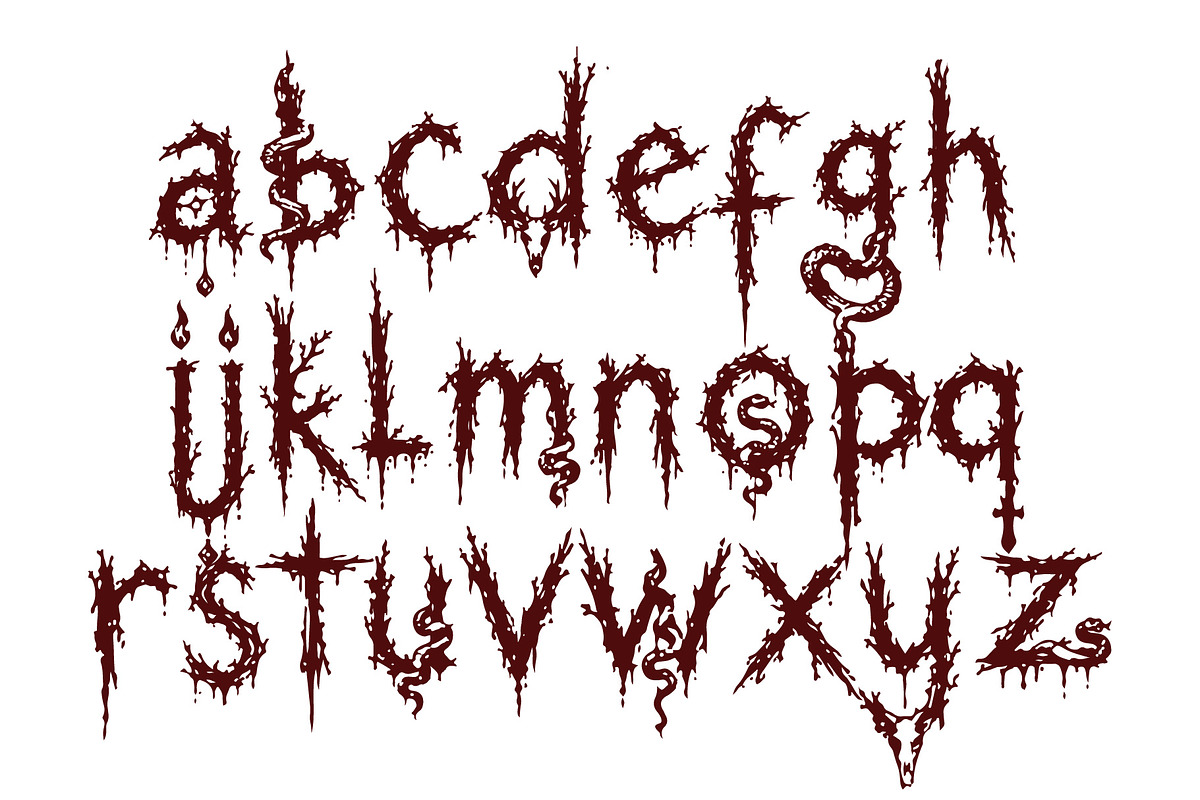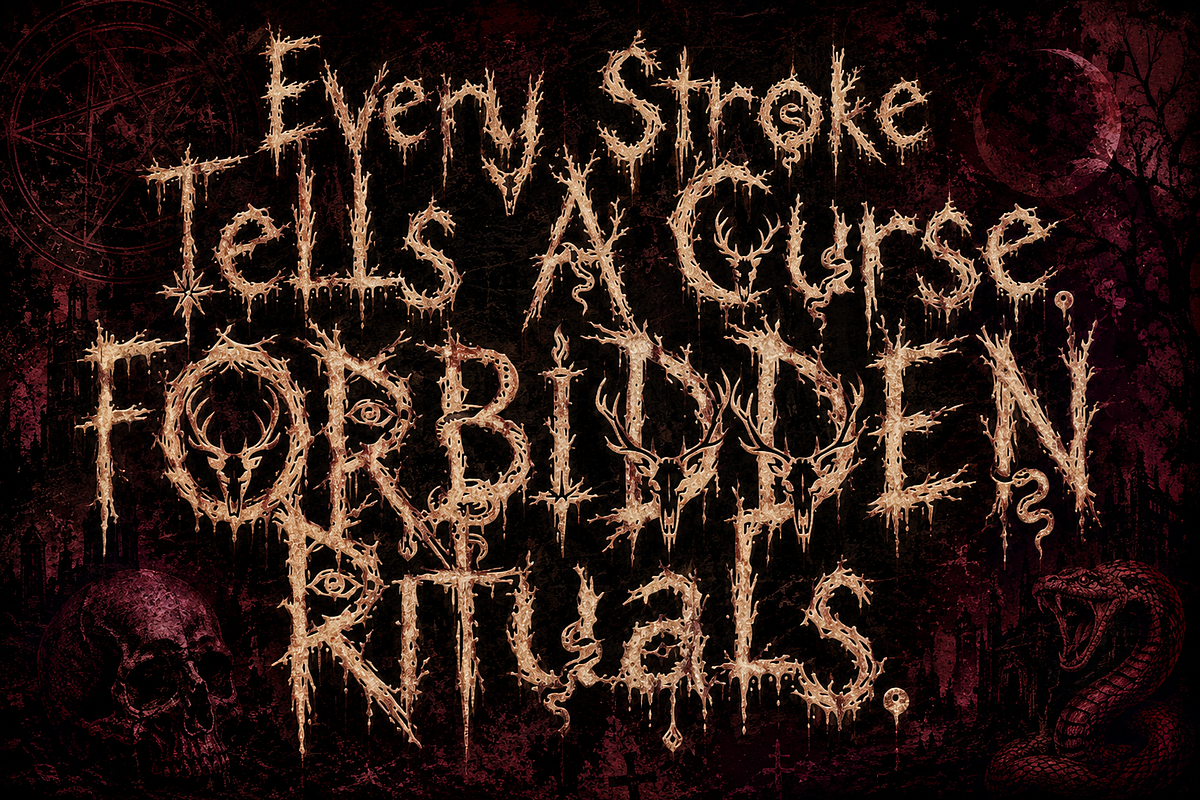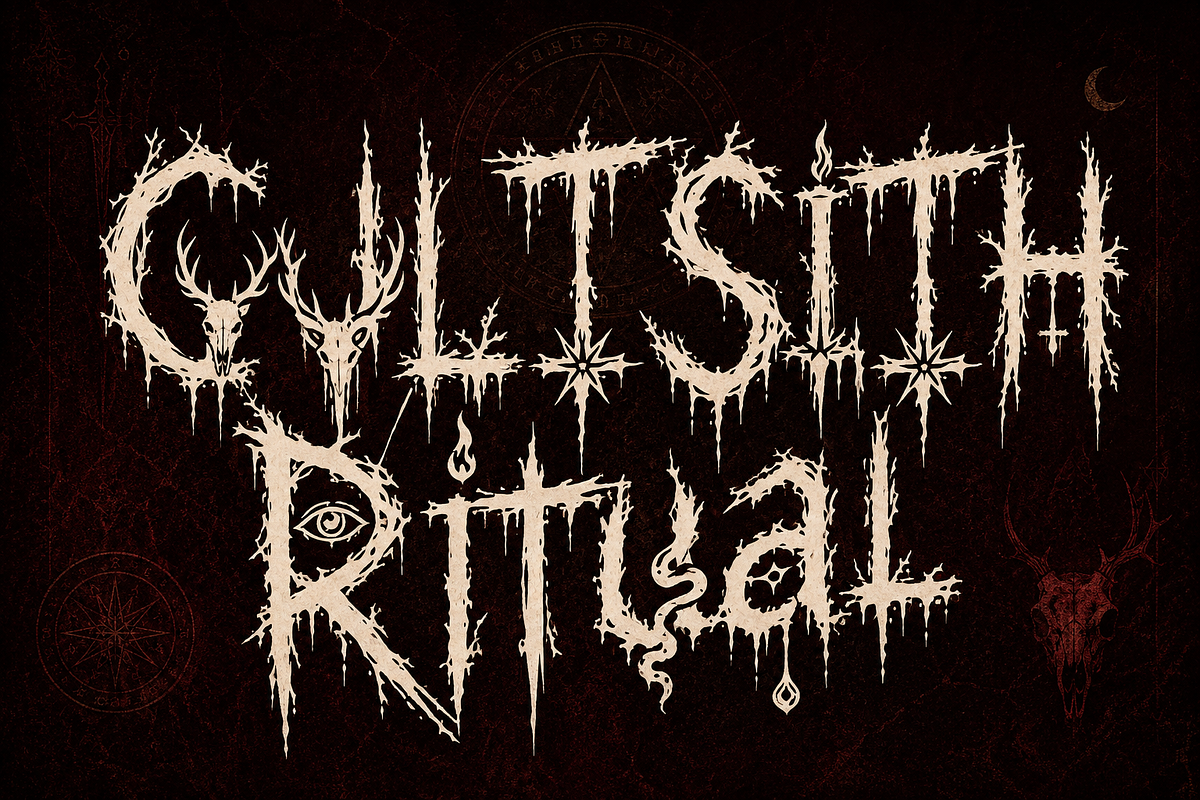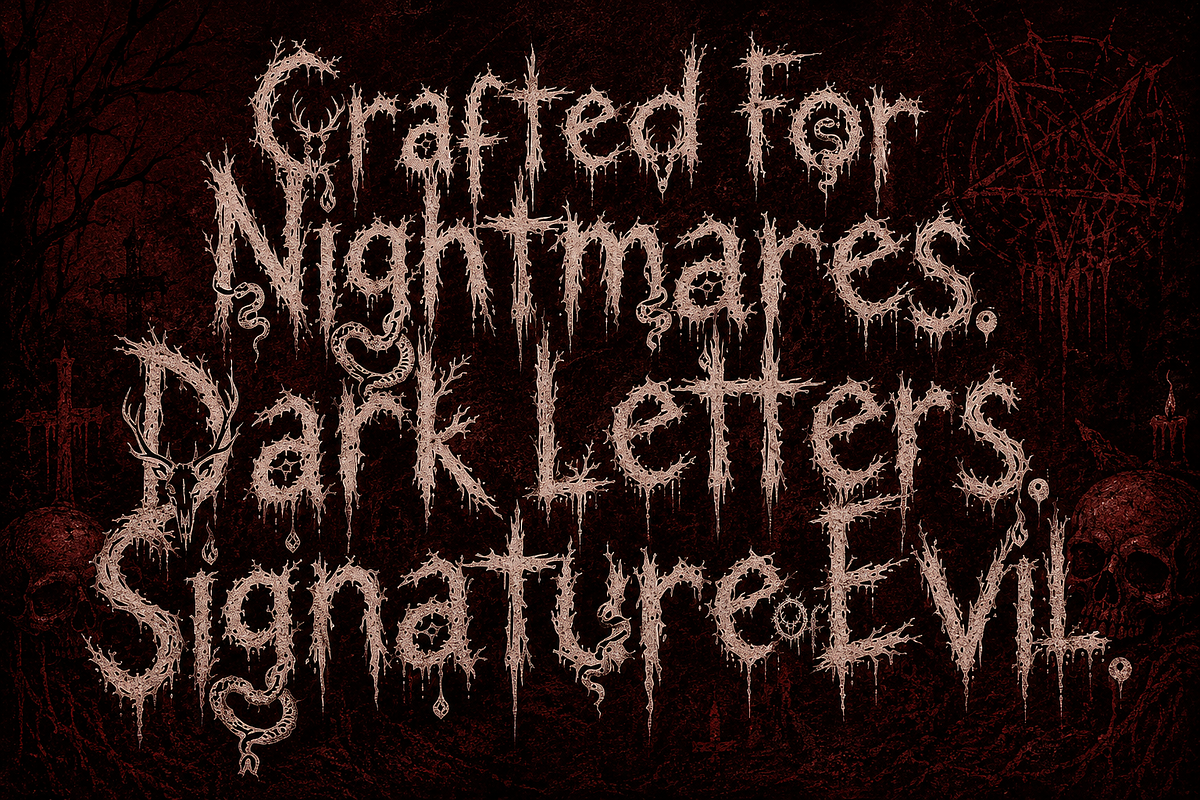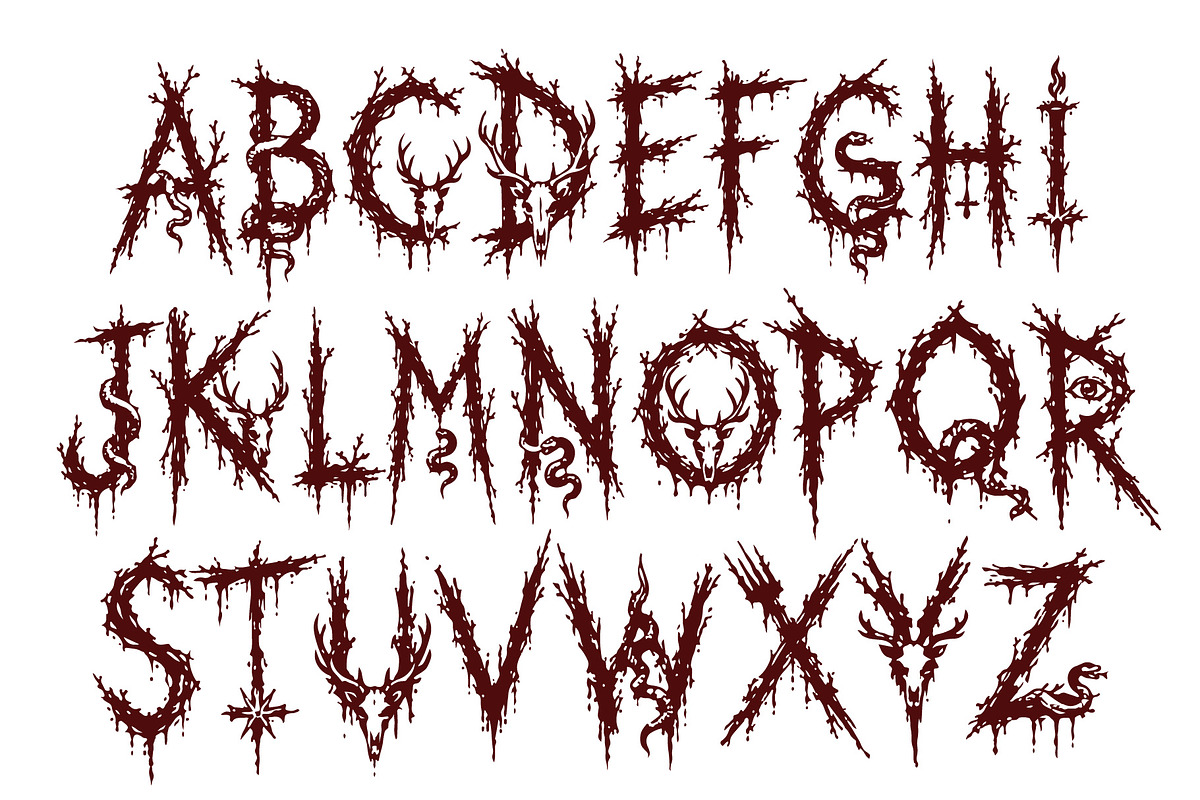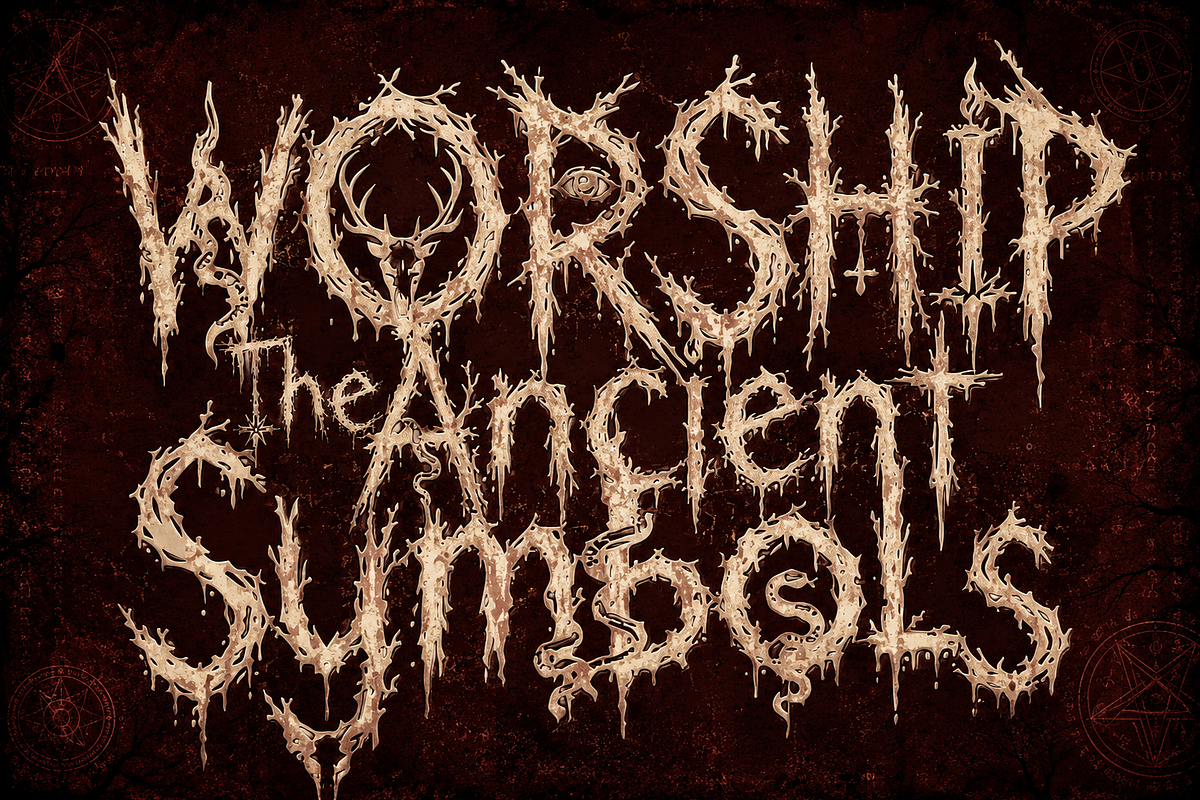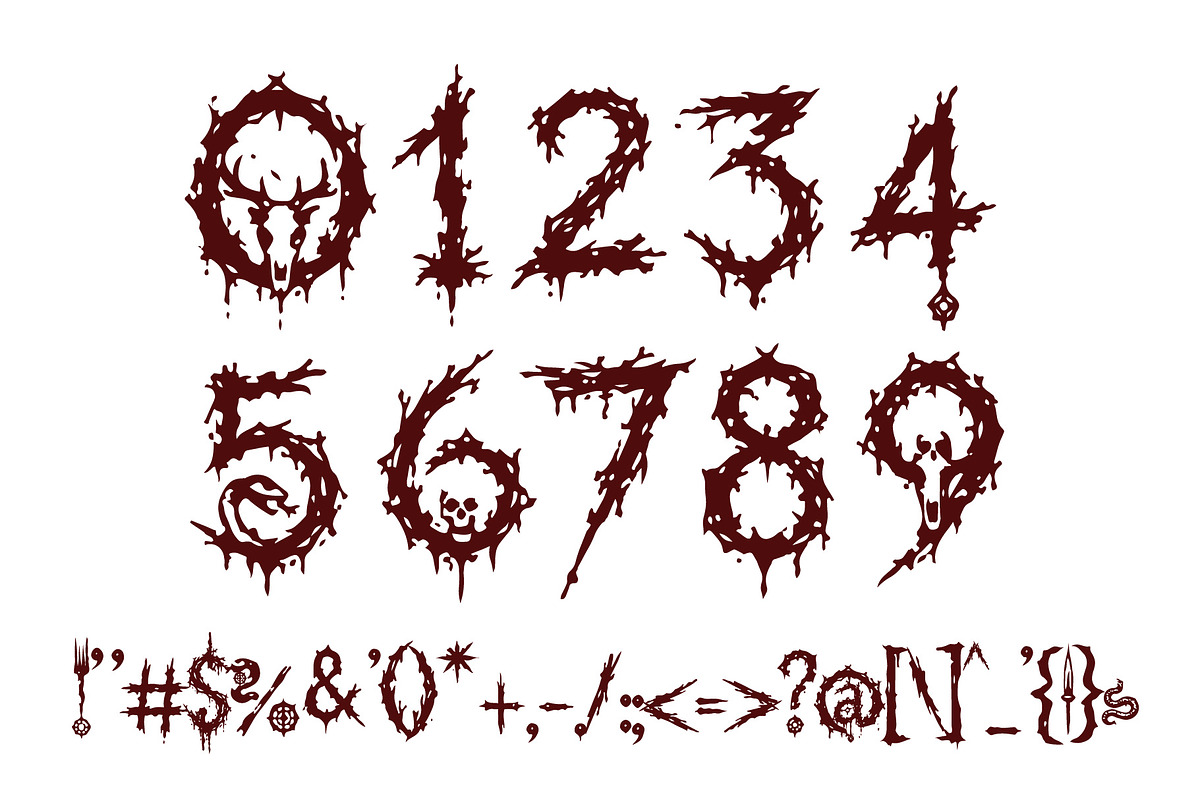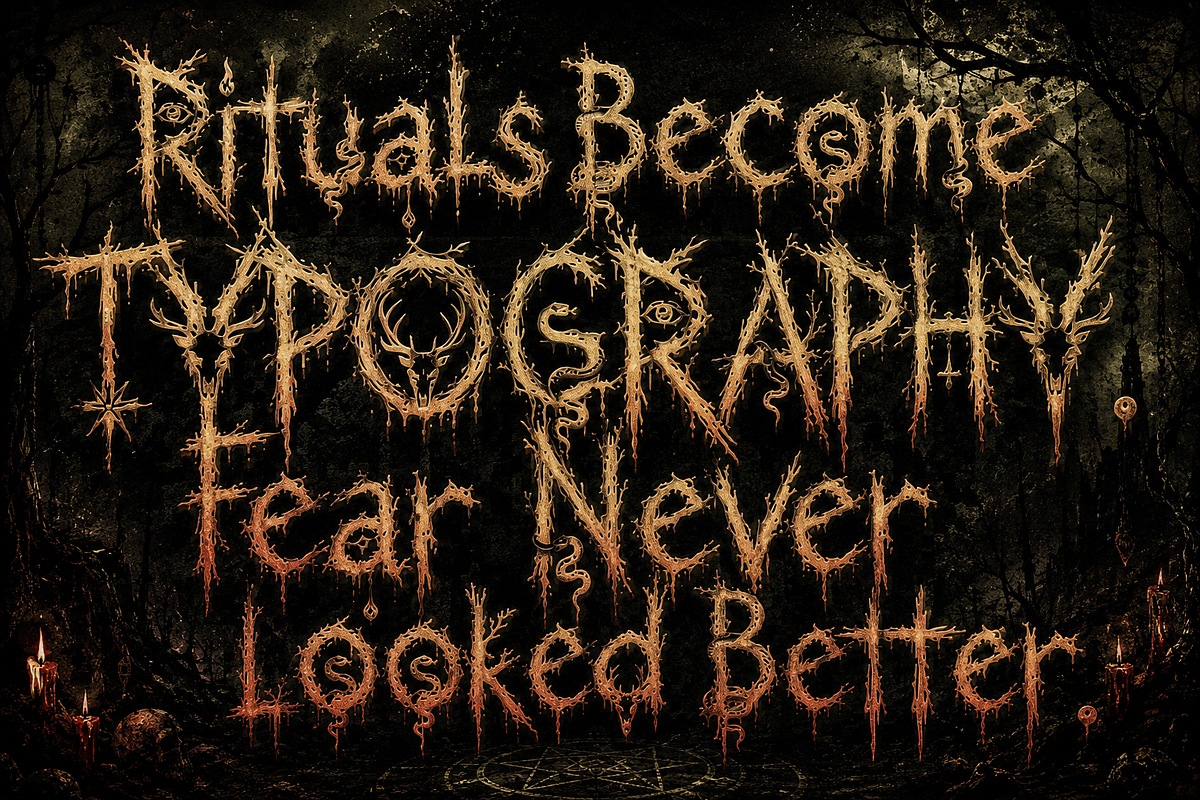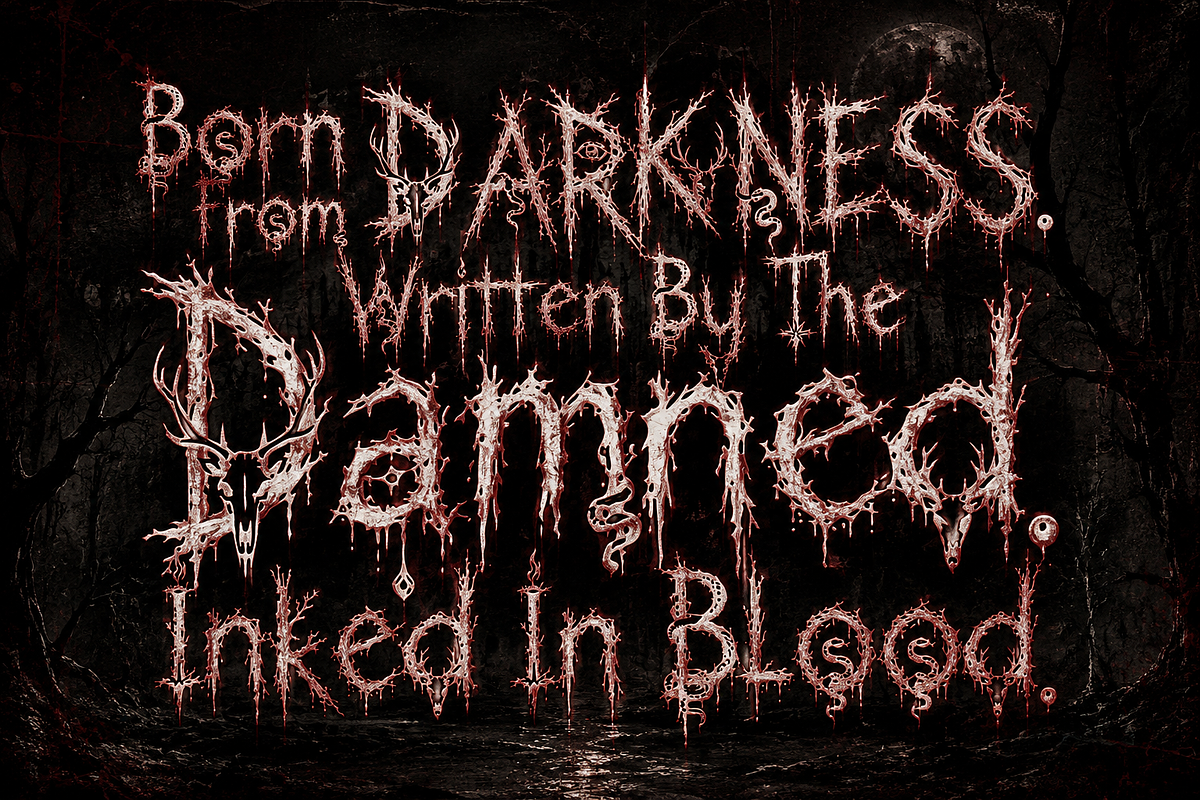
CultsithRitual - Cursed Damned
Unleash the darkness with "CultsithRitual" handcrafted horror script typeface. Inspired by occult rituals, ancient witchcraft symbols, underground cult aesthetics, and distressed brush lettering, this font delivers an eerie handwritten style that feels raw, cursed, and unpredictable.
Perfect for horror movie posters, Halloween branding, heavy metal artwork, dark fantasy book covers, album artwork, apparel, tattoos, haunted attractions, YouTube thumbnails, gaming graphics, and supernatural-themed designs.
Every letter is designed with rough brush textures, organic ink imperfections, and grunge details to create an authentic handcrafted appearance that stands out in both digital and print projects.
Horror Movie Posters
Halloween Designs
Witchcraft Branding
Occult & Cult Artwork
Heavy Metal Albums
Dark Fantasy Covers
Apparel & Merchandise
Tattoo Designs